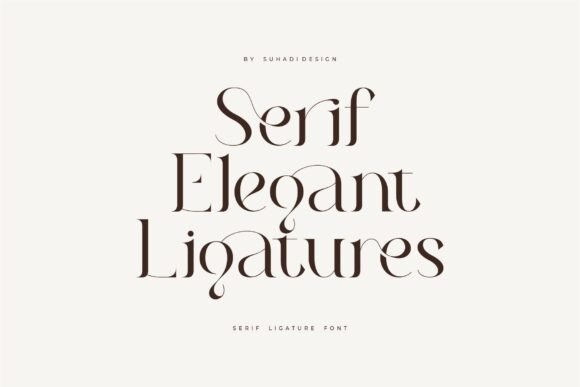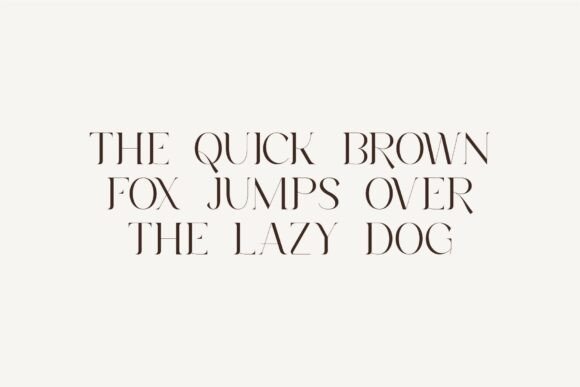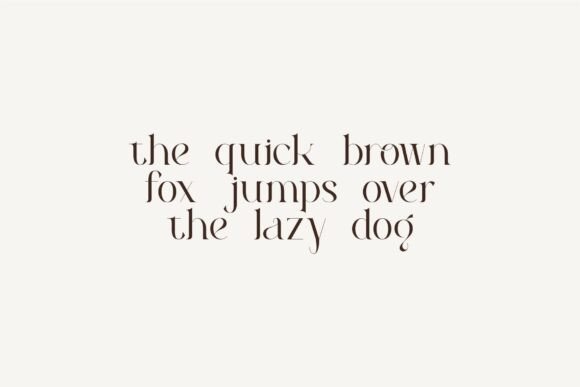
Introduction to Roilra Font
Remember that moment when you’re working on a creative project, and you need the perfect font to bring your design to life? It’s like searching for the missing piece of a puzzle, and when you finally find it, everything falls into place. That’s exactly what the Roilra Font does for designers – it elevates their work to the next level with its sophisticated elegance.
With its high-contrast strokes, sweeping curves, and stylish connections, the Roilra Font offers a unique blend of modern refinement and timeless sophistication. Whether you’re working on a luxury branding project or a high-end editorial layout, this font is sure to make your design stand out. And with its PUA-encoded feature, you’ll have effortless access to all glyphs, swashes, and alternate characters, giving you the freedom to customize your creations with ease.
- High-quality design: The Roilra Font is crafted with precision and attention to detail, ensuring a polished look for any creative project.
- Unique characteristics: The font’s distinctive style and elegant curves make it perfect for adding a touch of sophistication to any creative project.
Honest Review: Roilra Font
I recently had the chance to work with the Roilra Font, and I must say it’s a great addition to my design resources. The high quality of this font is immediately noticeable, with crisp lines and a clean aesthetic.
- High-quality design with crisp lines and a clean aesthetic ✨
- The Roilra Font is limited in its character set, which may not be suitable for large-scale text-based projects ⚠️
- The font’s design may not be suitable for formal or professional projects, as it has a more playful feel ⚠️
Common Use Cases for Roilra Font
Roilra Font is suitable for a wide range of creative projects, including but not limited to:
– Marketing materials
– Social media graphics
– Print designs
– Digital artwork